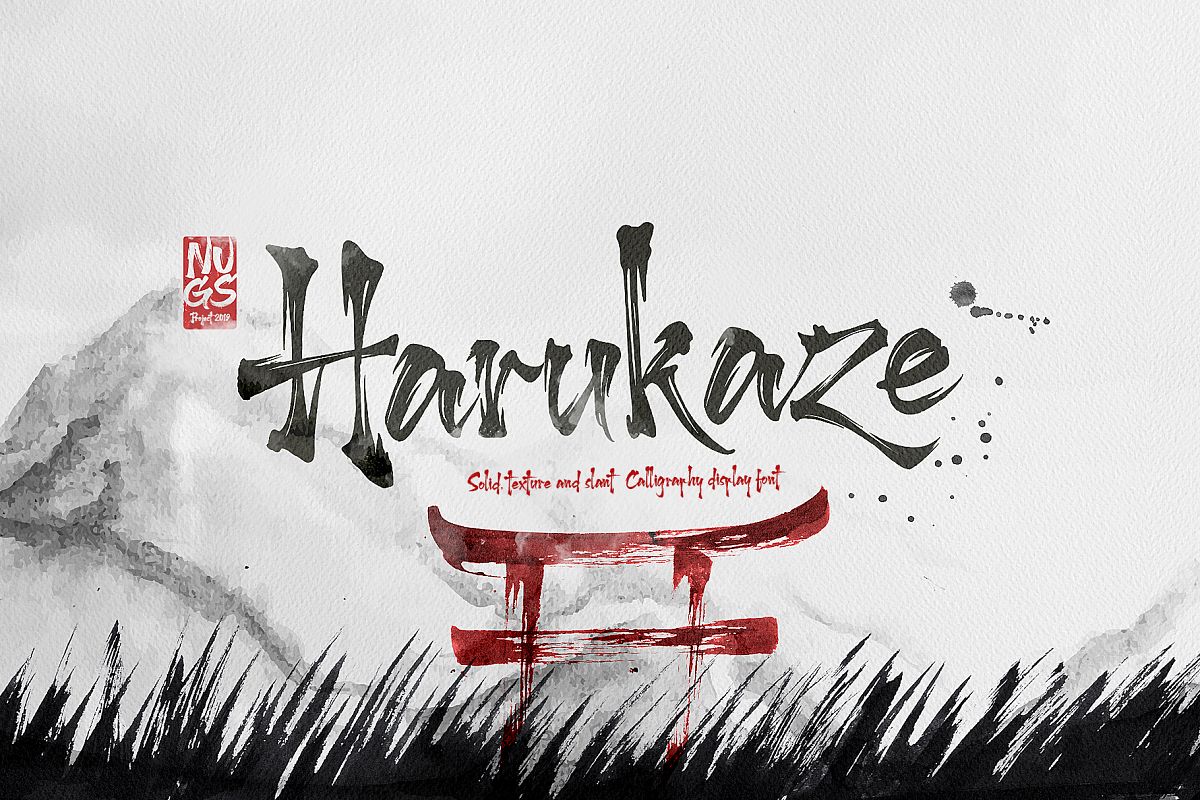
Harukaze Brush Font
Harukaze is a font with
"Japanese calligraphy style". very suitable for use in movie titles,
logos, band names and t-shirt designs. if you like calligraphy brushes,
Harukaze is the right choice for your collection to design.